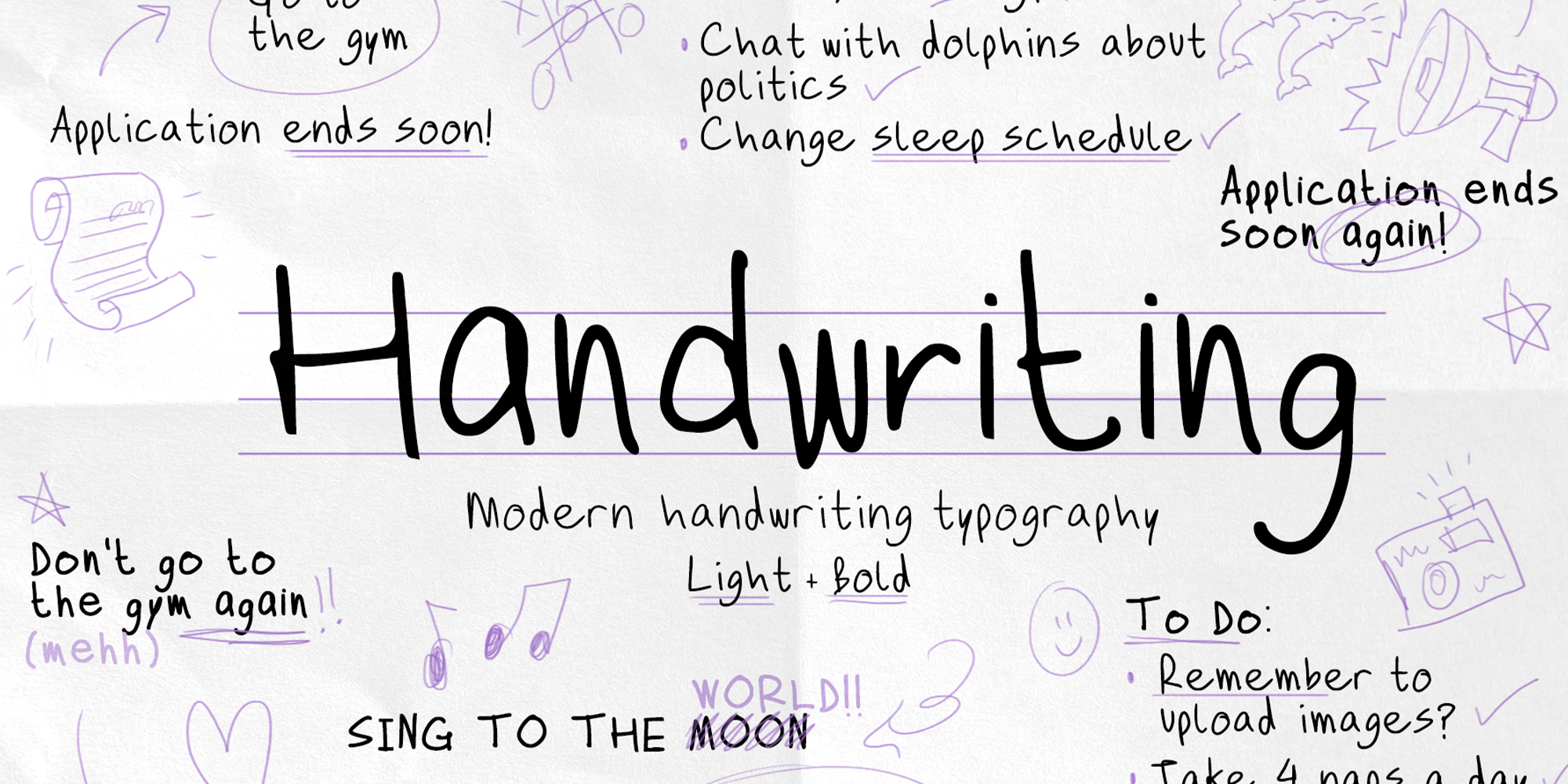
Handwriting Font Free Download – Authentic Personal Script Style
Add a genuine human touch to your designs with Handwriting Font Free Download, a natural-looking script that mimics real penmanship with all its charming imperfections. Perfect for projects needing warmth, personality, and approachability.
Why This Handwriting Font Stands Out
True-to-Life Irregularities – Natural variations in letterforms
Quick-Dry Ink Effect – Subtle texture for authentic feel
Multiple Alternates – Avoid repetitive look in longer texts
Optimized Readability – Casual but clear
600+ Glyphs – Including contextual alternates
Standard Ligatures – For smooth letter connections
Multilingual Support – Basic European languages
Perfect Baseline – Natural flow without chaos
Test its personal touch in your:
Friendly logo concepts
Personal stationery designs
Social media graphics
Journal and planner projects
Where This Font Works Best
1. Personal Branding
Blogger/writer signatures
Creative resume text
YouTube channel graphics
2. Small Business
Café menu specials
Handmade product labels
Boutique shop signage
3. Educational Materials
Worksheet instructions
Teacher's notes
Children's activity books
4. Digital Communication
Email signature styling
App notification text
Personalized messages
Add human warmth to digital projects
Avoid sterile computer-looking text
Design Tip: Use slightly imperfect alignment for extra authentic look!
Perfect for: Anyone needing to bridge digital and human connection.
Note: This font includes left-handed and right-handed writing alternates.